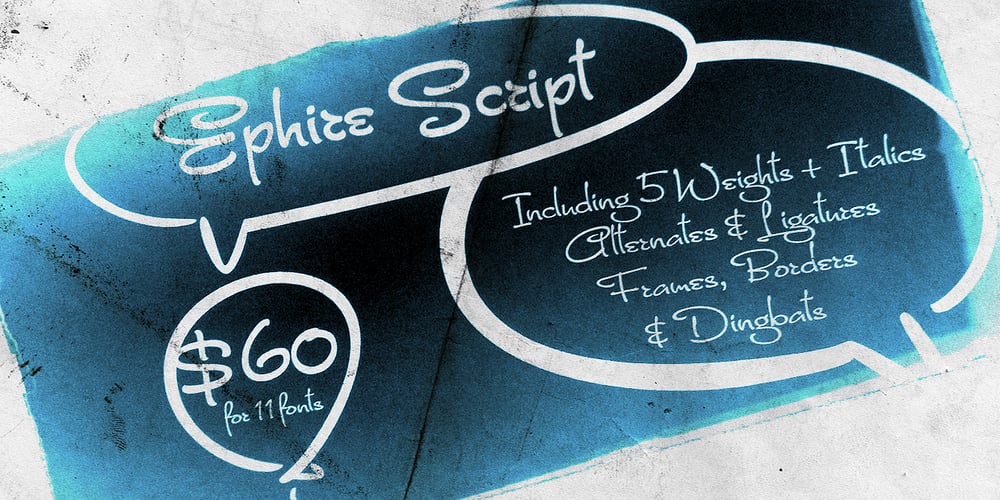
FM Ephire
FM Ephire font
FM Ephire Font Family was designed by Jordan Jelev, Vassil Kateliev and published by The Fontmaker. FM Ephire contains 11 styles and family package options. FM Ephire is a hand-drawn, multilingual, type family of five weights with complimenting italics. Stuffed with tons of features, Ephire really shines through its artistic and stylish, yet elegant feel of natural handwriting. It is your best choice whenever you design greeting cards, banners or posters, and it also handles pretty well for body text, even in small sizes. Enjoy Ephire!